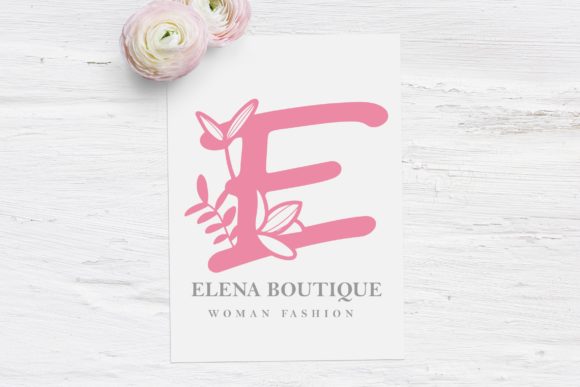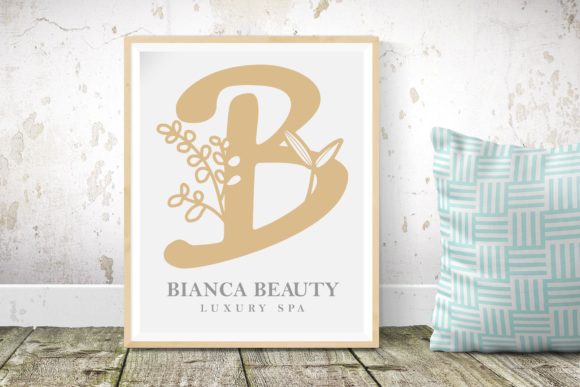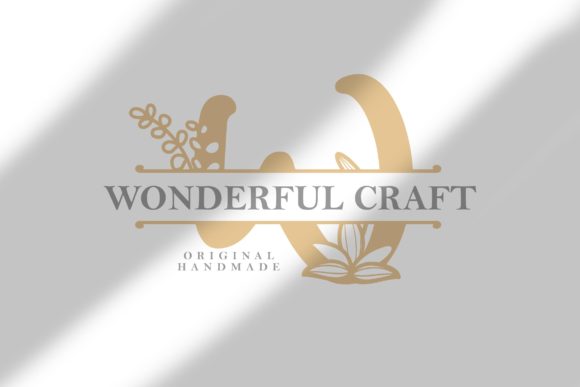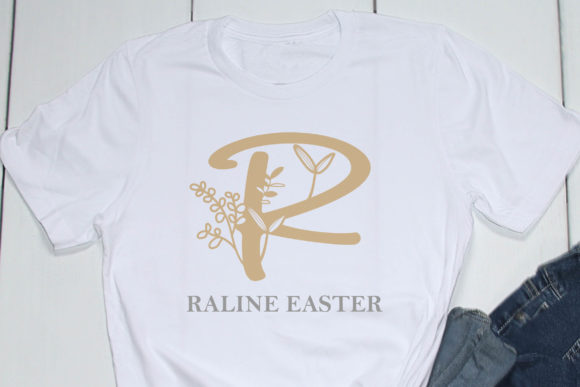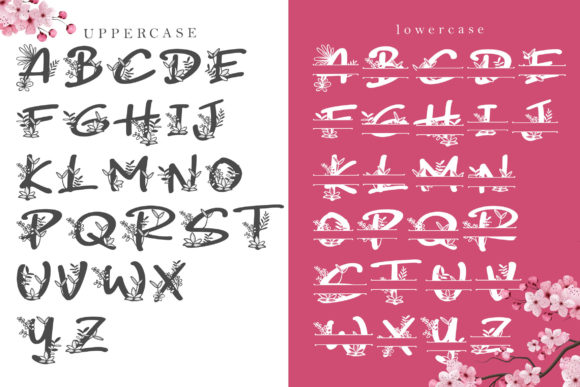
Introduction to East Sakura Monogram Font
East Sakura Monogram is an elegant and delicate handwritten font.
Fall in love with its incredibly versatile style and use it to create gorgeous wedding invitations, beautiful stationary art, eye-catching social media posts, and much more .
Key Features of East Sakura Monogram Font
Why Choose East Sakura Monogram Font?